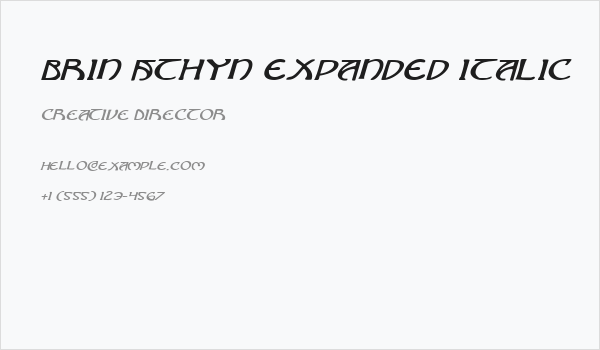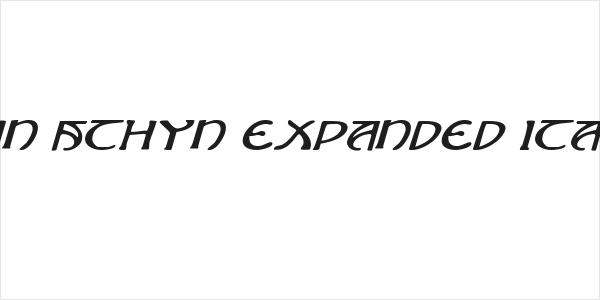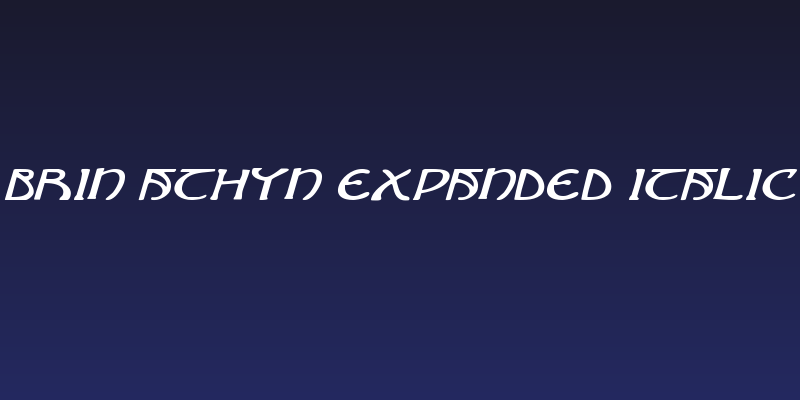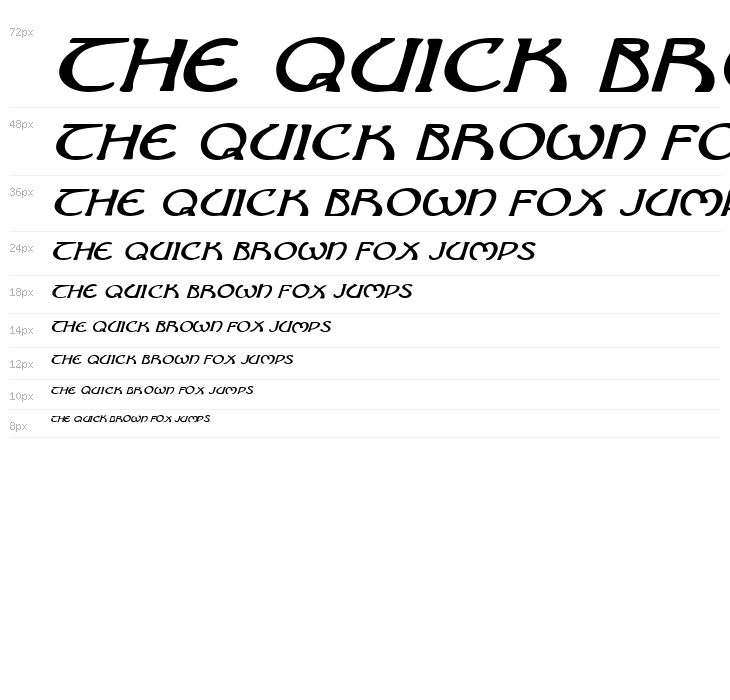
Brin Athyn Expanded Italic Font
Brin Athyn Expanded Italic Description
This font features a dynamic and flowing style with an italic slant, giving it a sense of movement and elegance. The characters are expanded, providing a wide and open appearance that enhances readability while maintaining a decorative flair. The strokes are smooth and consistent, with moderate contrast between thick and thin lines, adding to its sophisticated look. The font's unique character shapes, particularly in the uppercase letters, offer a distinctive and artistic touch, making it suitable for creative and expressive design projects.
| Proposed Projects | Ideal for branding, posters, and creative design projects that require a touch of elegance and flair. |